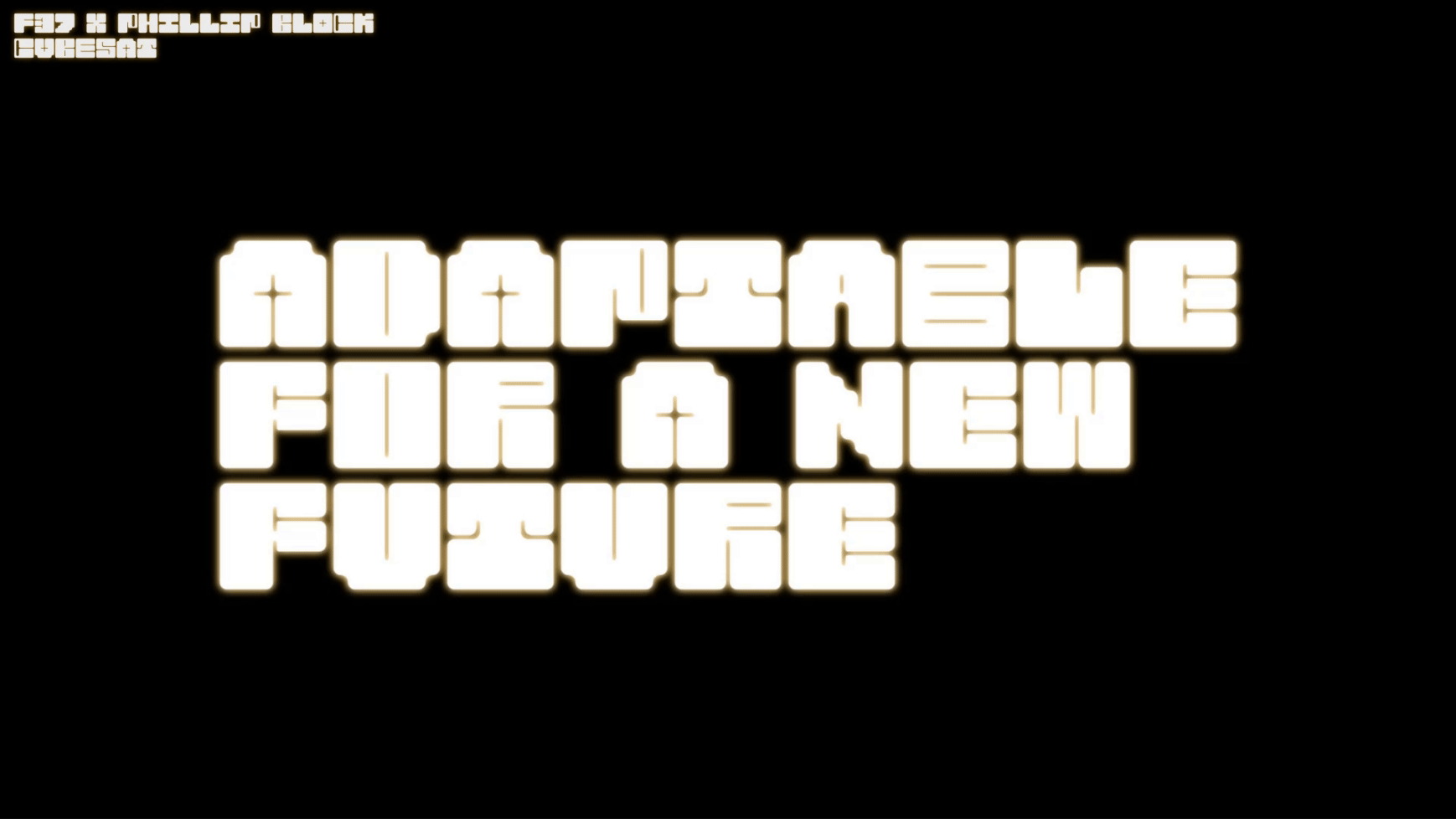
F37 Cubesat
The starry-eyed F37 Cubesat brings a creative modularity that may not be out of this world, but is definitely in low earth orbit.
F37 Cubesat is a mono-spaced font that not only occupies equal widths, but also equal heights making it perfect for vertical stacking, tight leading and grid layouts. Other notable features are its twinkling counters, daring proportions and demanding presence. This all caps font comes with alternate letter forms accessible through the different cases on the keyboard, as well as further alternates accessible though OpenType Stylistic Set features.
F37 Cubesat
I've been working largely in digital motion graphic content for the past 3 years - for me, type design is a creative escape. While I have designed custom fonts on commission, for the most part type design is a personal project. A way to stretch my ability to come up with creative solutions within constraints, and to produce something that I can see come to life in the hands of other designers.
F37 Cubesat
Tell us about the inspiration behind your collaboration with F37®×. If it was an unused concept, what was the potential use case for it.
The inspiration for Cubesat was the technology of the same name. I was obsessed with the idea of cubesats - the small, geometric, dense metal skeletons of a cube that makes up a 3D grid to be fitted with different technology for different purposes. I began the typeface in university, and it sat on the sidelines until F37®× provided a good opportunity to take another look at it and complete it in a collaborative way.
When starting the process of creating your font, what typographic conventions did you look to break or experiment with? Or were there conventions of functionality you championed?
I was experimenting with the idea of a monospace font, taking it to an extreme with every side of every letter being of equal dimensions. I wanted to play with opentype features in a way I hadn't seen before, too, in a way I found thematic with the cubesat concept, by cycling through all of the alternate sets as you type.
Now that your typeface has launched, what would be your dream project to use your F37® typeface on?
I wouldn't feel so good about the environmental impact, but, to see it printed on the side of a satellite or space shuttle would be the ideal place for it.
What have you learnt through developing and creating your own typeface(s) with our F37® type designers?
That collaboration is a great motivator.
How would you describe your typeface in three words?
Retrofuturistic building blocks